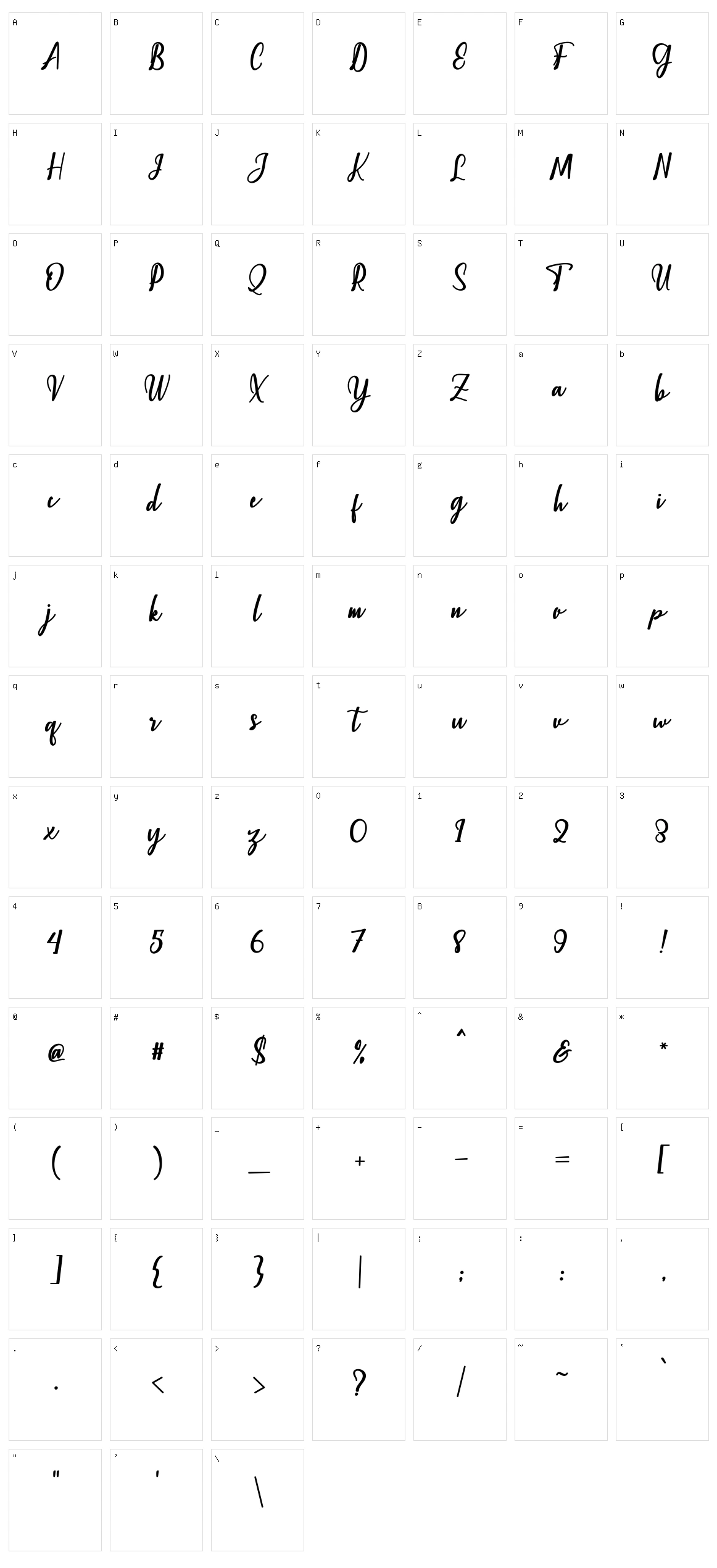
The free font Christopher Script is carefully designed by Bandit handmade, showcasing a thoughtful balance of creativity and usability and falls under the Script font style. When you download the ZIP file, it contains only 41.2 KB of font files, making it lightweight and quick to download. Please review the license details below to understand permitted usage and distribution rights. If license information is not available, we recommend using this font for personal projects only or contacting the author directly for commercial usage permissions.